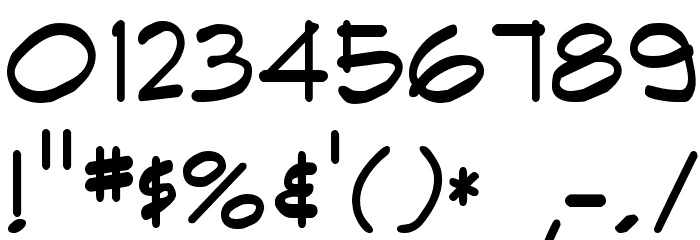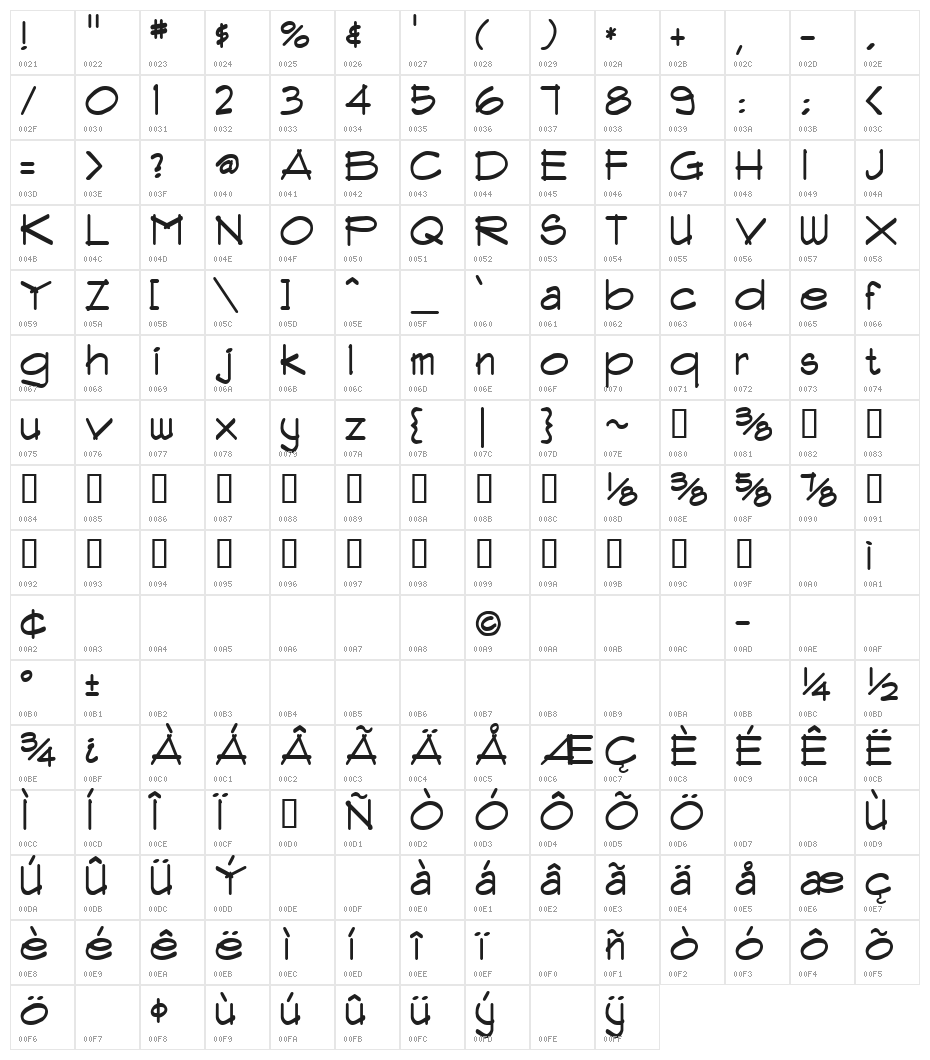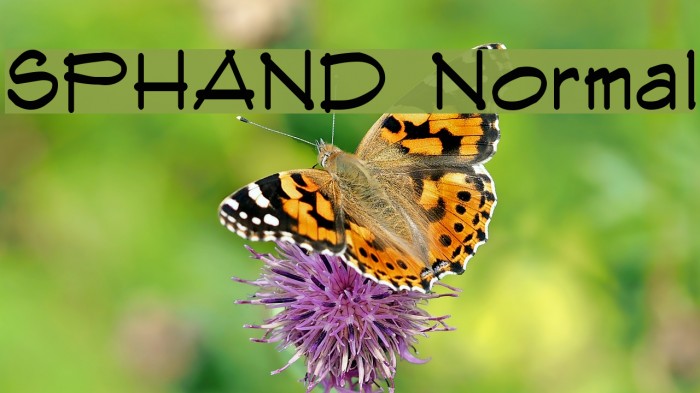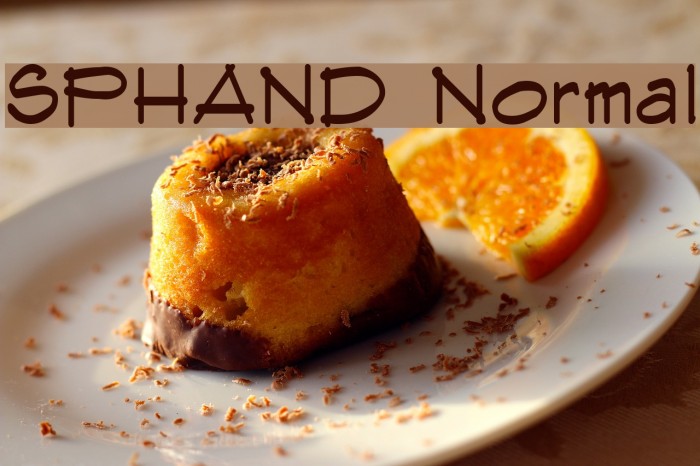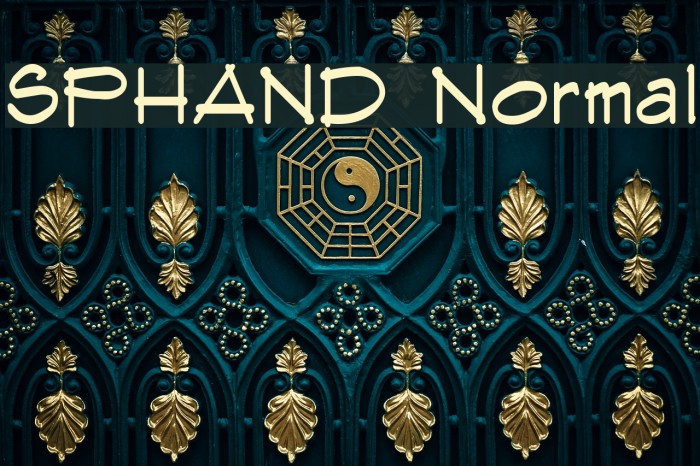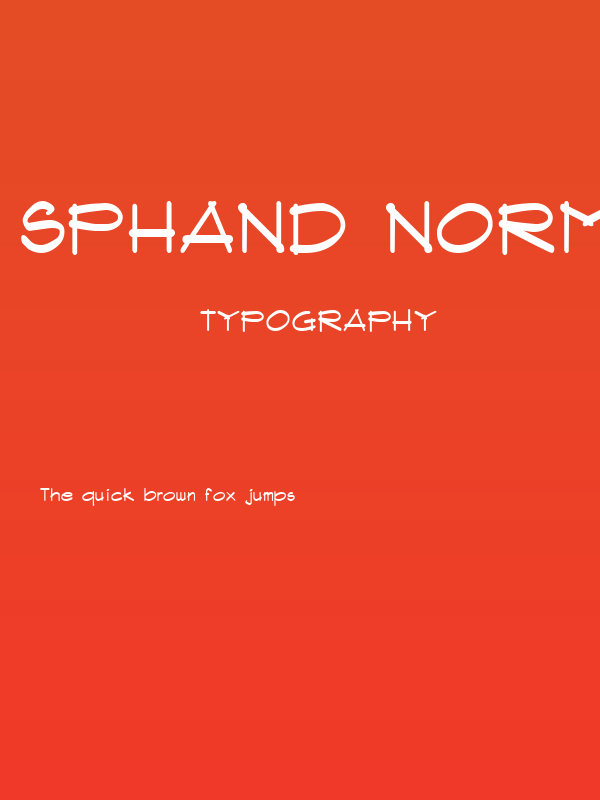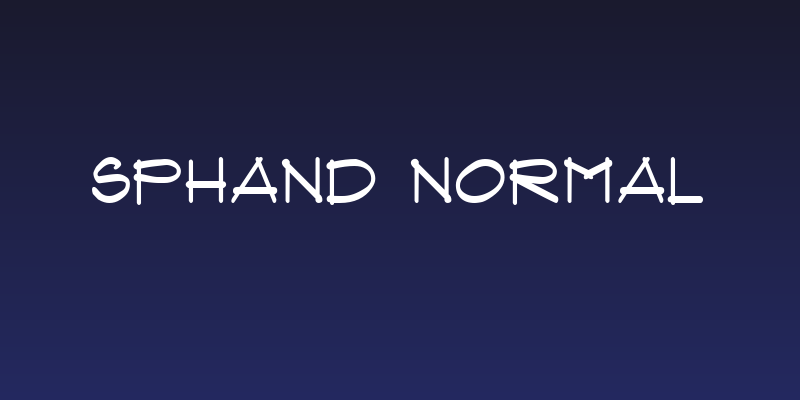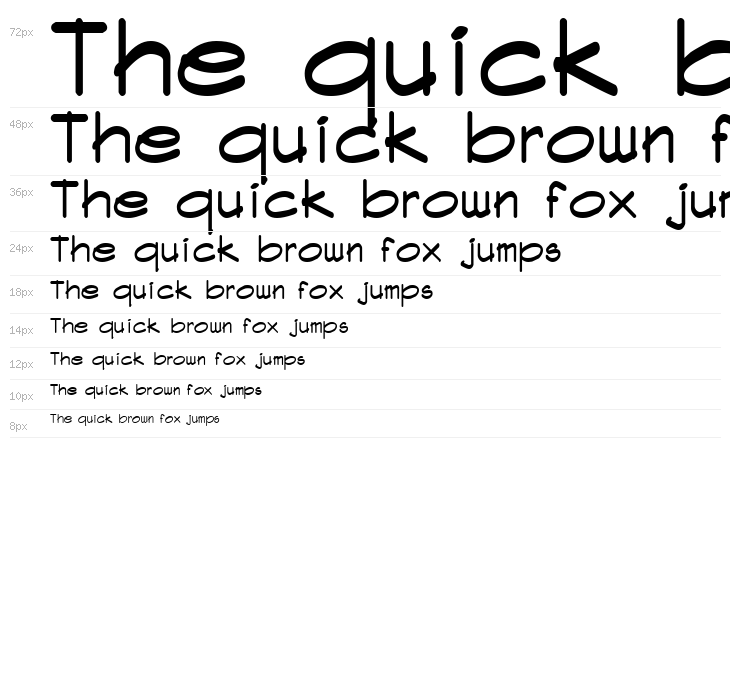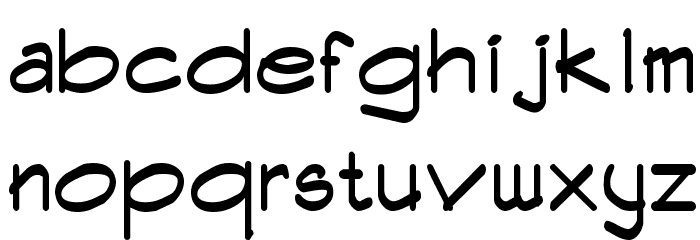
SPHAND Normal Font
SPHAND Normal Description
This font showcases a playful and casual handwritten style, characterized by its rounded and slightly irregular letterforms. The uppercase and lowercase letters maintain a consistent flow, with a whimsical touch that adds personality to the text. The numerals and special characters follow the same playful aesthetic, making them suitable for informal and creative projects. The overall appearance is approachable and friendly, with a modern twist that can appeal to a wide audience. The font's design is versatile, making it suitable for various applications where a relaxed and engaging tone is desired.
| Proposed Projects | Ideal for children's books, greeting cards, informal invitations, and creative branding. |